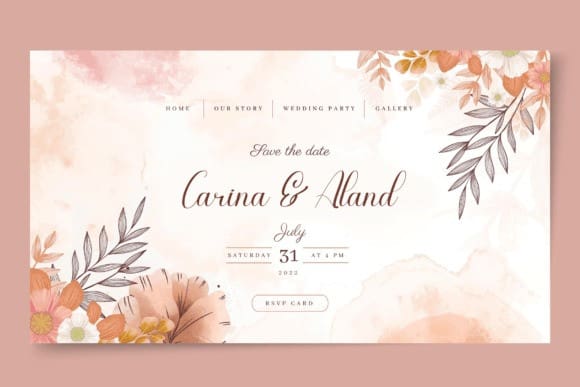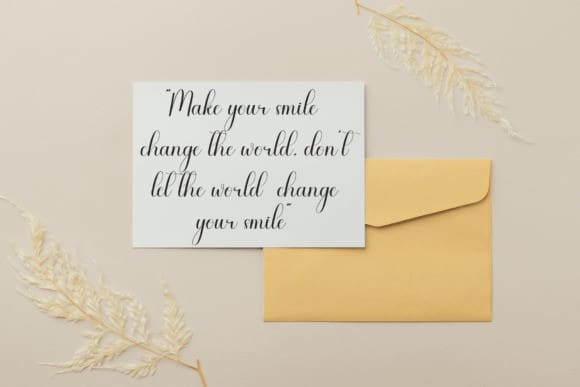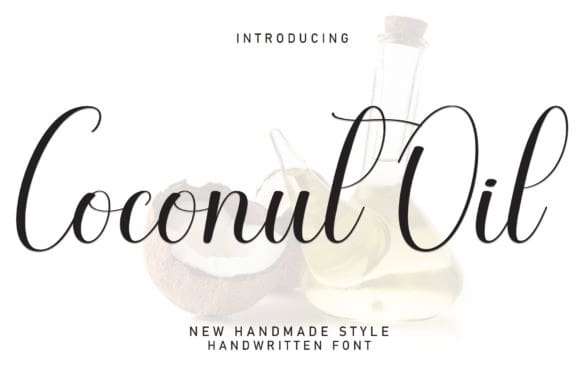
Coconut Oil Font
Coconut Oil Font is a tropical-inspired script and handwritten typeface that exudes a sense of natural beauty and relaxation. With its smooth curves and fluid strokes, it brings a touch of exotic charm to any design. Perfect for branding, packaging, and projects that desire a refreshing and laid-back island vibe.